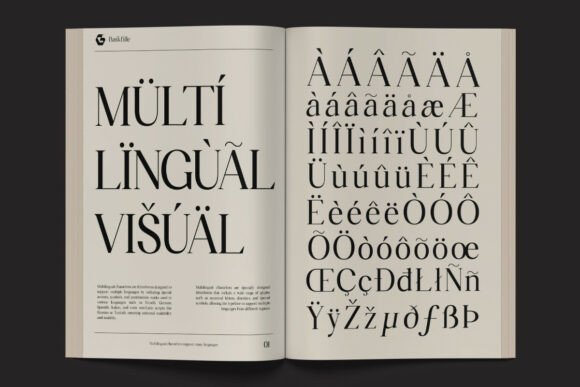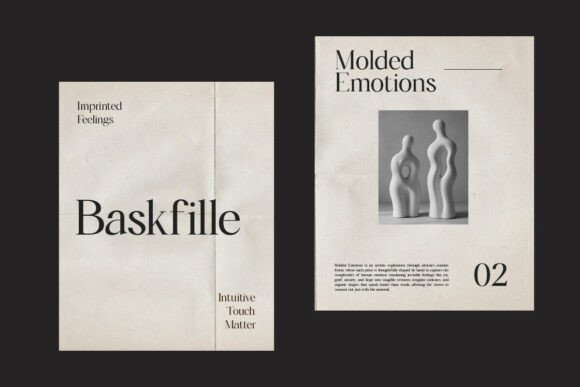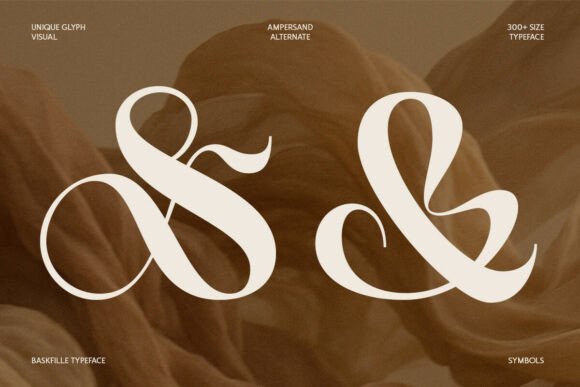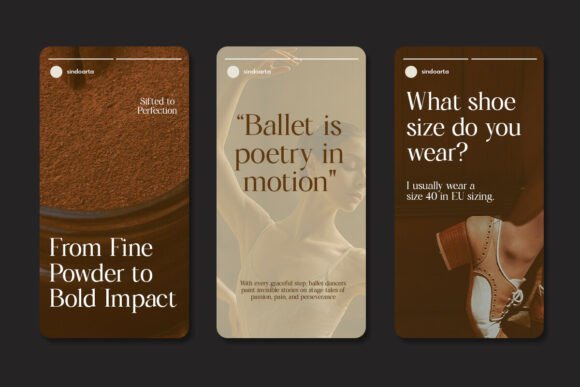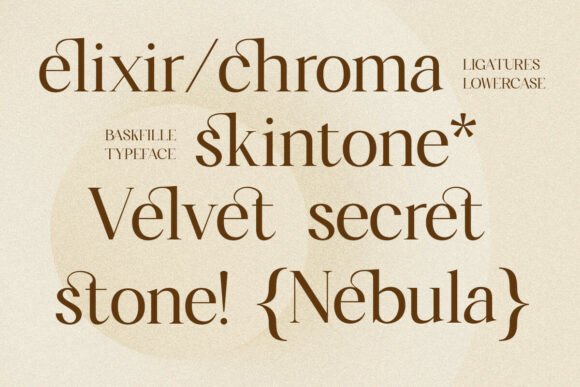
The Perfect Typography for a Lasting Impression
Remember that moment when you’re staring at a beautifully designed magazine or a stunning advertisement, and you can’t help but pause and appreciate the typography? For designers, it’s all about creating that perfect balance between aesthetics and legibility. The right font can make or break a design, and that’s where the Baskfille Font comes in – a sophisticated serif typeface that exudes classic charm and modern flair.
With its sharp serifs, high contrast strokes, and elegant proportions, the Baskfille Font is perfect for designers looking to create a lasting impression. Whether you’re working on a branding project, crafting a logo, or designing packaging, this versatile typeface brings sophistication and character to any creative project. Its timeless beauty makes it an invaluable asset for designers, and with its versatility, it’s no wonder why the Baskfille Font is a favorite among creatives.
Baskerville Font Key Features
- Unique Characteristics: Classic serif design, elegant and sophisticated, ideal for body text and headings
Baskerville Font Review
I’ve been experimenting with the Baskerville font for a few projects, and overall, I’m quite pleased with its performance. ✨ The font is designed to mimic the classic serif fonts of the 18th century, and it does a great job of capturing that traditional feel.
- ✨ High legibility: The font is easy to read, even at small font sizes.
- ✨ Classic aesthetic: The Baskerville font is perfect for projects that require a timeless, sophisticated look.
- ✨ Versatility: It can be used for both body text and headings, making it a great choice for a wide range of projects.
- ⚠️ Limited ligatures: While the font is designed to mimic classic serif fonts, it lacks some of the ligatures that are typically found in these fonts.
- ⚠️ Limited font weights: The font only comes in a few weights, which can make it difficult to create a range of visual hierarchies.
Overall, I think the Baskerville font is a great choice for projects that require a classic, sophisticated look. While it may have some limitations, its high legibility and versatility make it a solid choice for designers.
Baskerville Font is ideal for formal documents, such as resumes, business reports, and academic papers. It’s also suitable for book covers, wedding invitations, and other formal stationery.
To get the most out of the Baskerville Font, use it in combination with other classic fonts, such as Garamond or Times New Roman.
Creative Projects Using Baskerville Font
Project 1: Elegant Book Cover Design